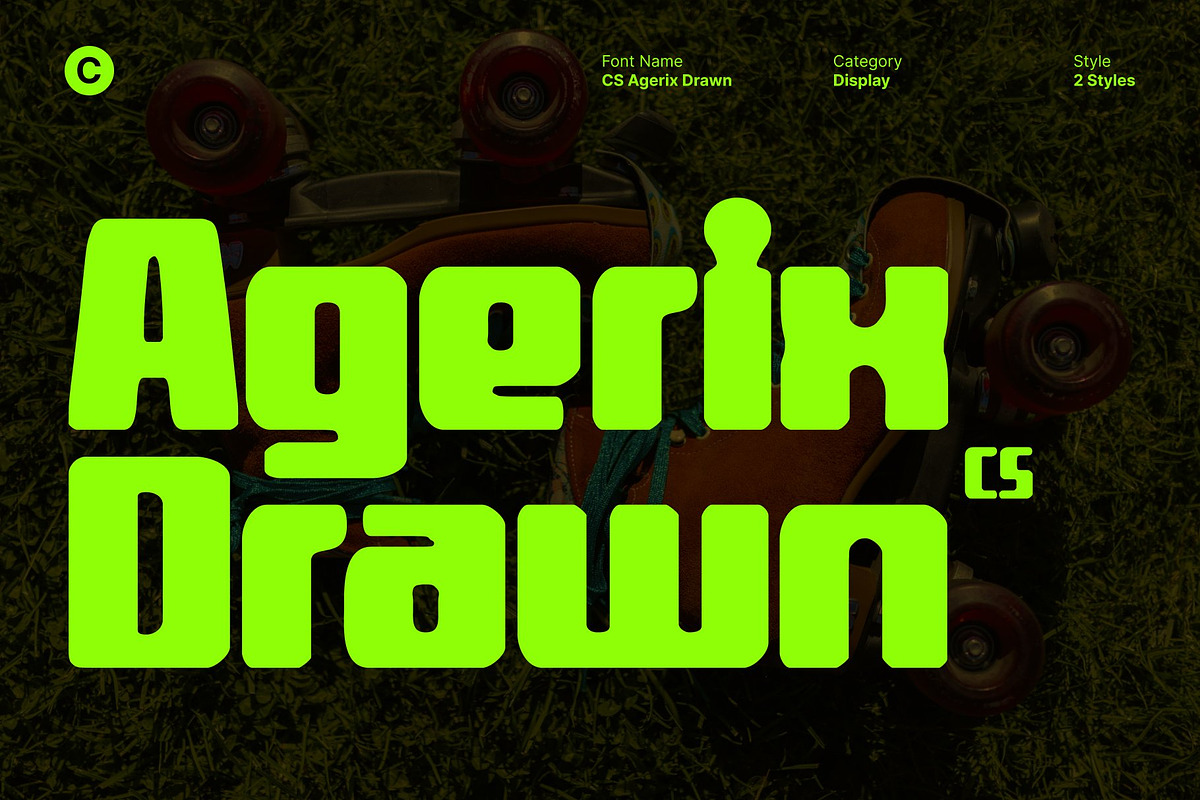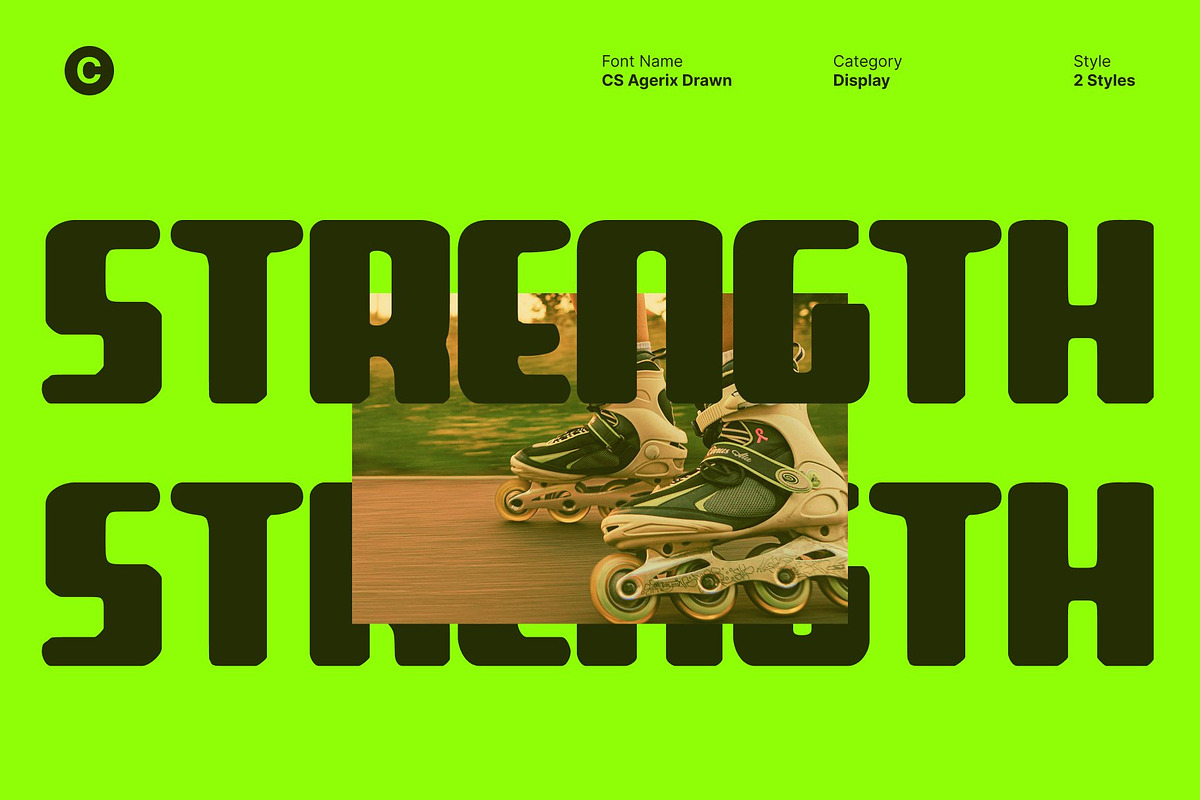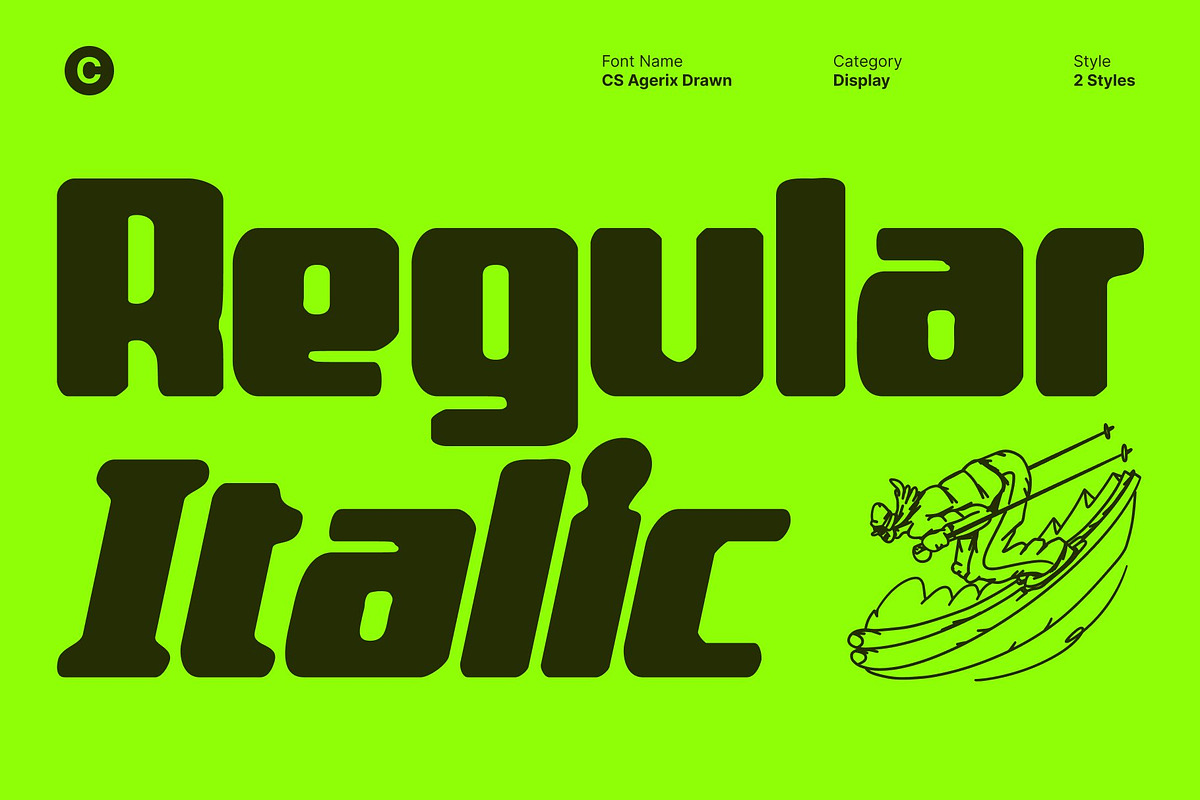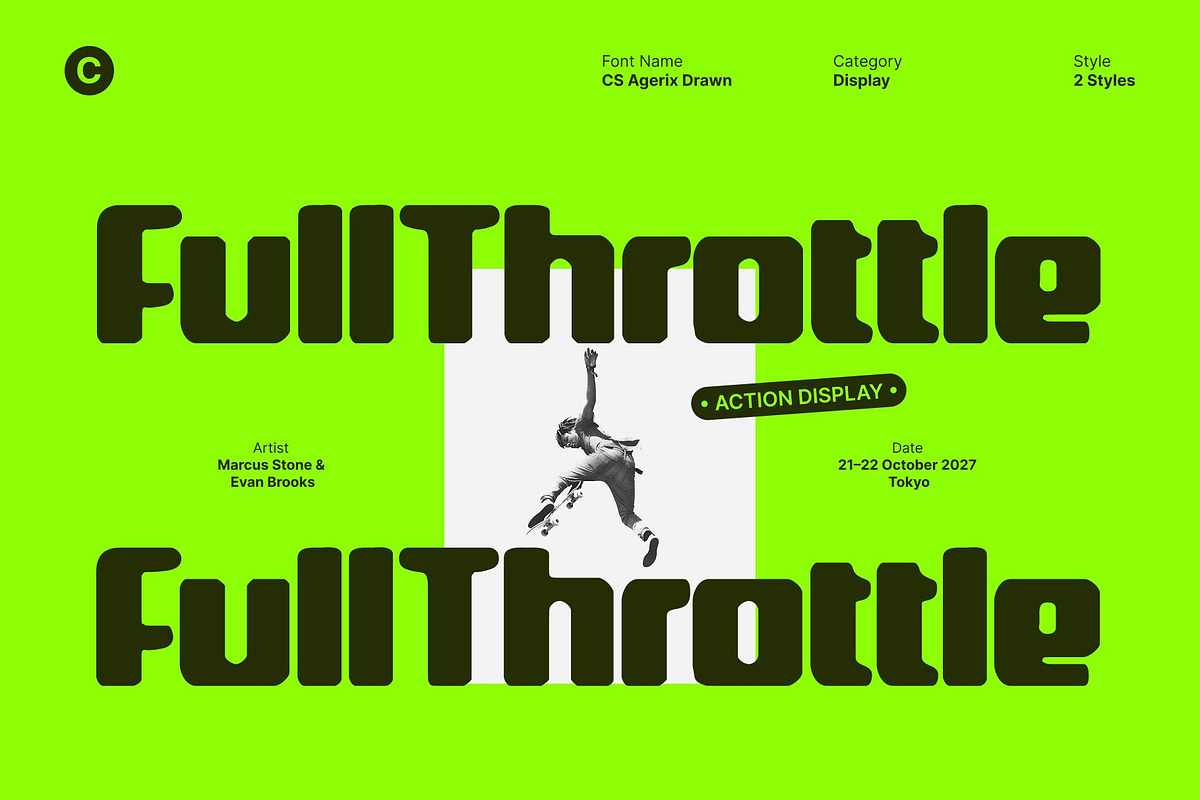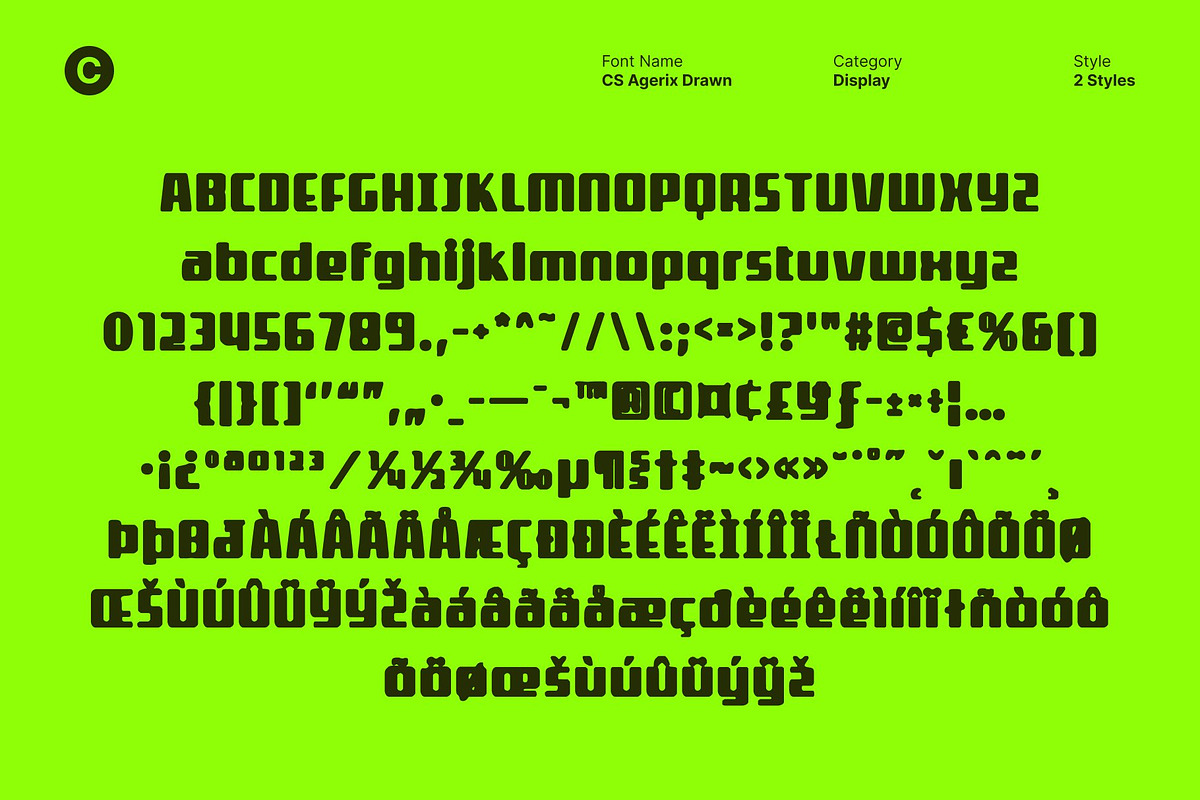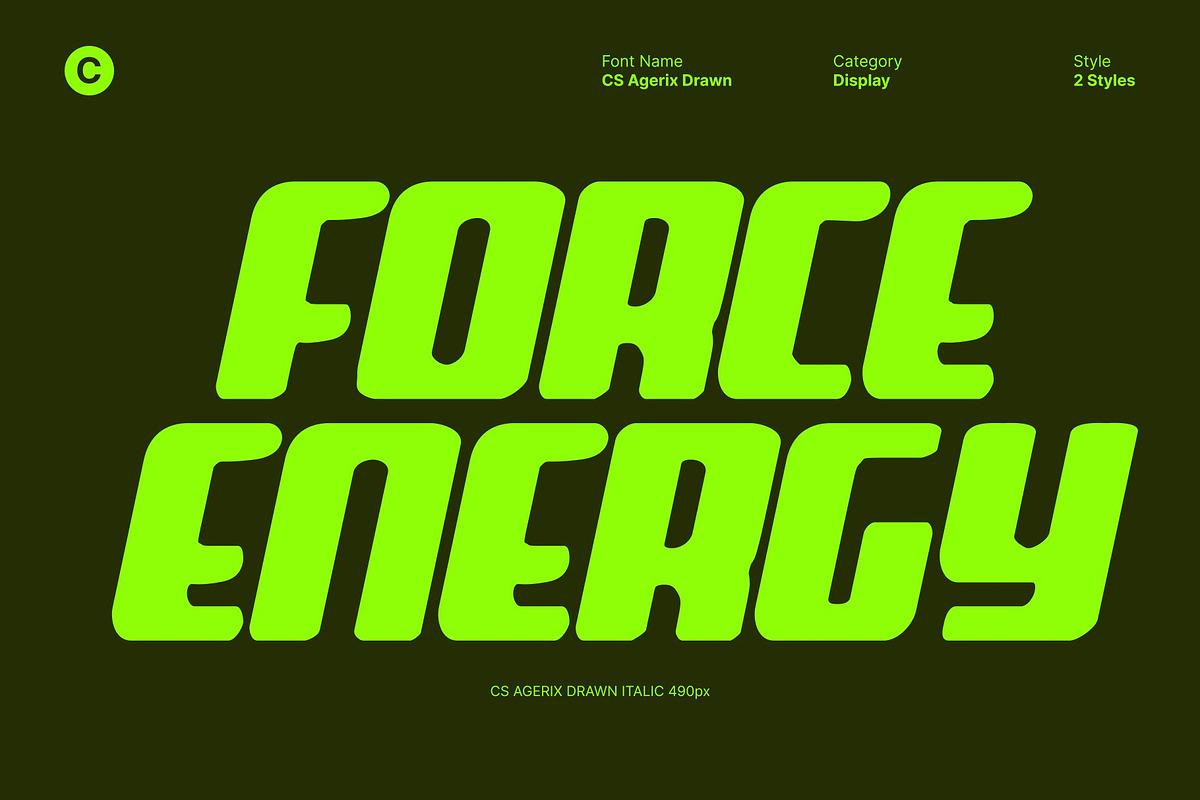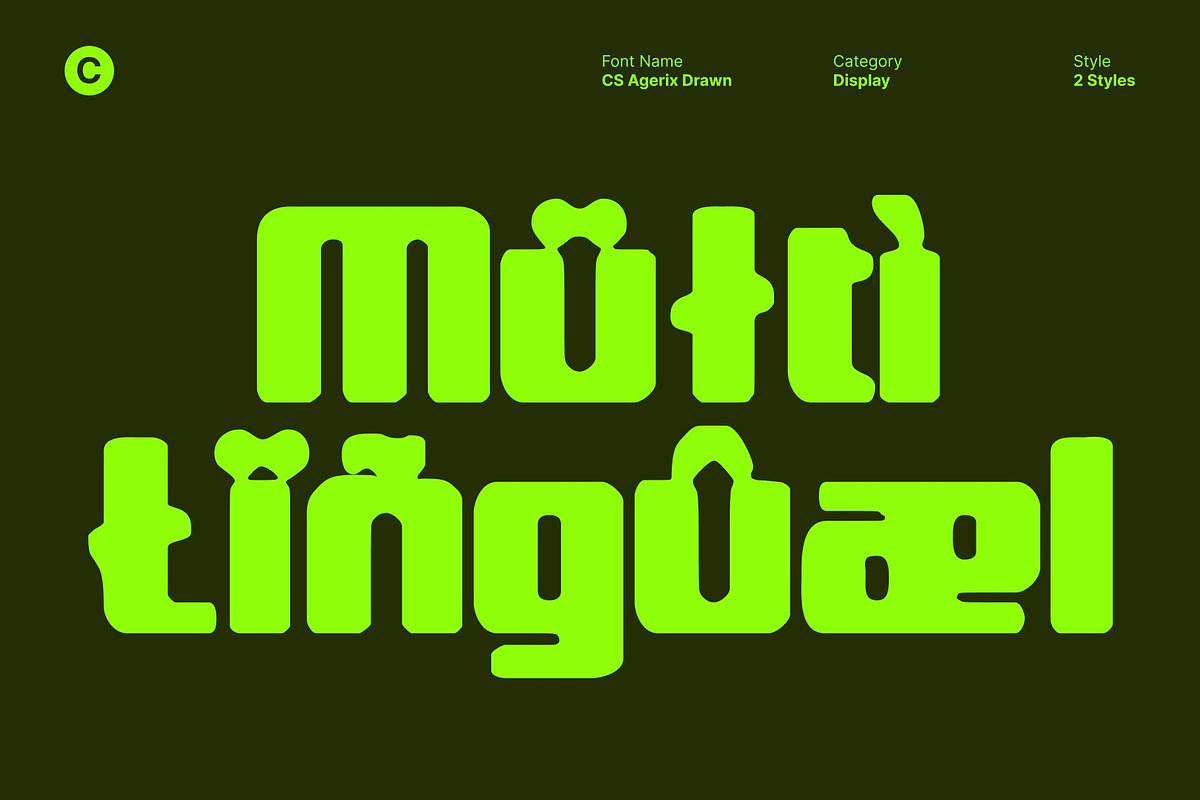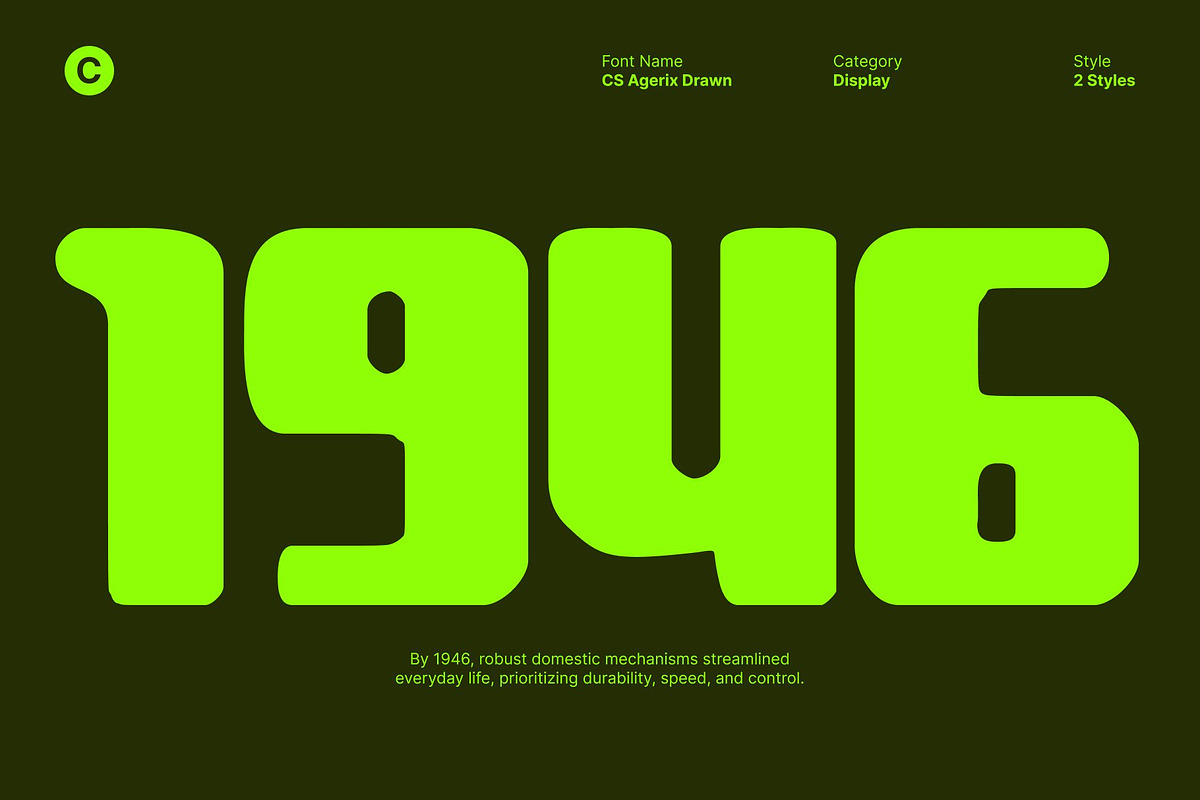
CS Agerix Drawn
CS Agerix Drawn – Industrial Precision Meets Modern Design
Bold Geometric Sans Serif with Hand-Drawn Character This is a bold geometric sans serif font that blends industrial strength with smooth, precise construction. Built for clarity and performance, its structured forms communicate confidence, innovation, and technical excellence. The added drawn texture introduces a subtle handcrafted nuance, softening the industrial feel while preserving its modern, functional character.
Strong Structure with Clean Geometry Rooted in geometric precision, each letterform features clean lines, balanced proportions, and sharp edges that convey stability and professionalism. This clear structural approach ensures strong readability and visual impact, making every word feel deliberate, controlled, and powerful.
Industrial Aesthetic with Modern Appeal This font captures the essence of industrial design through bold, confident shapes and a solid typographic presence. While robust at its core, its smooth curves and drawn details add contemporary refinement, creating a balanced fusion of strength, technology, and modern sophistication.
Versatile for Branding and Creative Projects From branding and logo design to techno layouts, editorial visuals, and digital interfaces, this font adapts seamlessly across creative contexts. Its modern industrial voice makes it ideal for designers seeking to express innovation, reliability, and clarity in posters, corporate identities, and cutting-edge visual systems.